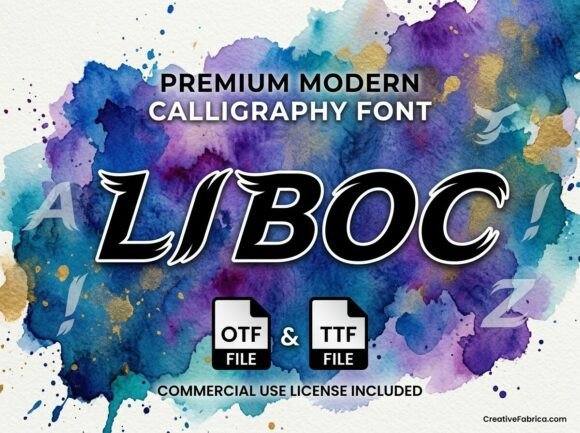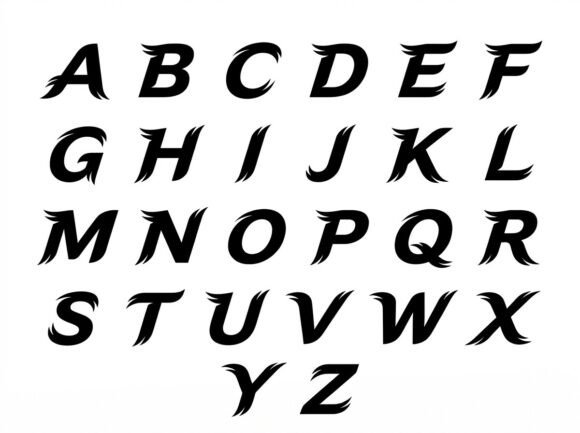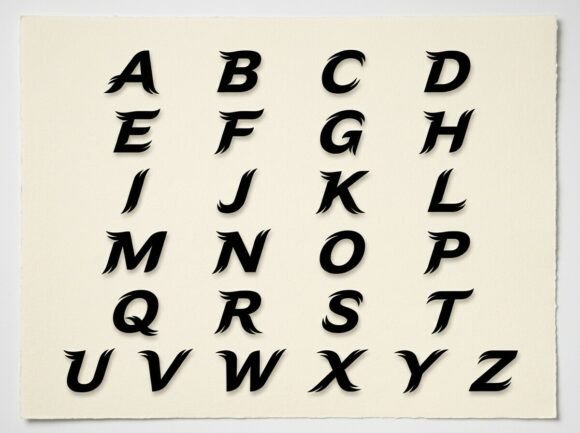
Introduction to Liboc Font
Remember the rush of excitement when you stumble upon a perfect design resource that elevates your creative project? It’s that ‘aha’ moment when everything clicks into place, and your vision starts to take shape. For designers, finding that elusive perfect font can be a game-changer. And that’s exactly what we’re about to introduce you to – the stunning Liboc Font – a game-changing addition to your design arsenal.
Liboc Font is more than just a beautiful face; it’s a statement piece that adds a touch of sophistication and elegance to any design. With its high-contrast elegance and delicate plumage-inspired flourishes, this premium modern calligraphy font is sure to leave a lasting impression. Whether you’re working on a luxury boutique branding project or creating chic social media graphics, Liboc Font is the perfect design companion to help you deliver high-quality results.
Key Features of Liboc Font
- High-quality design resource with a unique aesthetic, perfect for creative projects.
- Features a transparent background, making it ideal for use on a variety of backgrounds and designs.
- Includes a range of font sizes, from 12pt to 72pt, catering to various design needs and requirements.
- Designed at a high resolution of 300 DPI, ensuring crisp and clear typography in print and digital applications.
- Supports a wide range of languages, making it a versatile design resource for international projects.
- Can be easily customized and edited using popular font editing software, allowing for a high degree of flexibility and creativity.
Honest Review: Liboc Font
I recently came across the Liboc Font and was excited to give it a try. As a designer, I’m always on the lookout for high-quality design resources to elevate my creative projects.
- High-quality design: The Liboc Font boasts beautiful, detailed letterforms that are perfect for a wide range of design applications.
- Transparent background: The font’s transparent background allows for seamless integration with other design elements, making it easy to use in creative projects.
While I appreciate the Liboc Font’s qualities, I do wish it came with more language support. Currently, it only supports a limited number of languages, which can be a drawback for designers working on global projects.
Overall, the Liboc Font is a great addition to any designer’s toolkit, and I’m excited to see how it can be used in future creative projects.
Tips for Getting the Most Out of Liboc Font
For the best results, use Liboc Font with a transparent background to create a clean and modern look. You can also experiment with different font sizes and styles to add visual interest to your design.
Liboc Font is ideal for use in creative projects such as branding, advertising, and web design. Its high-quality design makes it perfect for showcasing your brand’s message and values.
Montserrat compares well to Liboc Font as it offers a more modern and versatile design. While Liboc Font is more suited for rustic or vintage designs, Montserrat is ideal for contemporary and urban designs.
Great Vibes is a beautiful script font that’s perfect for design projects that require a touch of elegance and sophistication. It’s free to download and suitable for various design resources, including wedding invitations, menus, and packaging designs. Great Vibes is ideal for creative projects with a transparent background, making it perfect for showcasing beautiful graphics and images.
Project 2: Liboc Font Quote Overlay
Project 3: Liboc Font Watercolor Illustration
Liboc Font Frequently Asked Questions